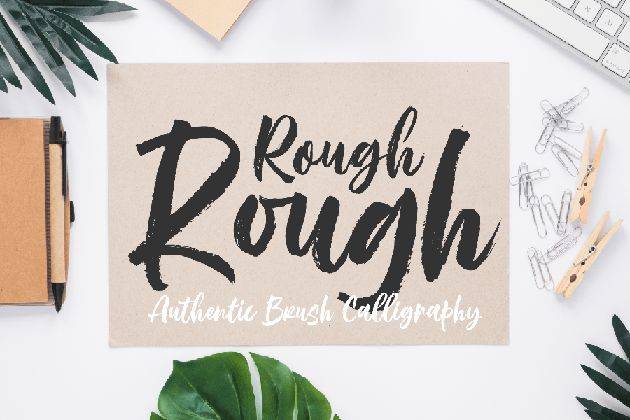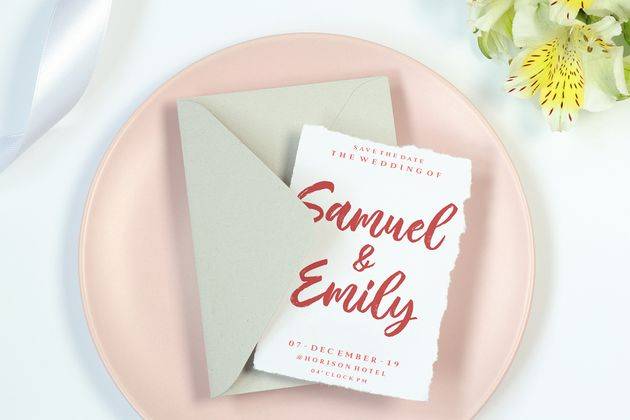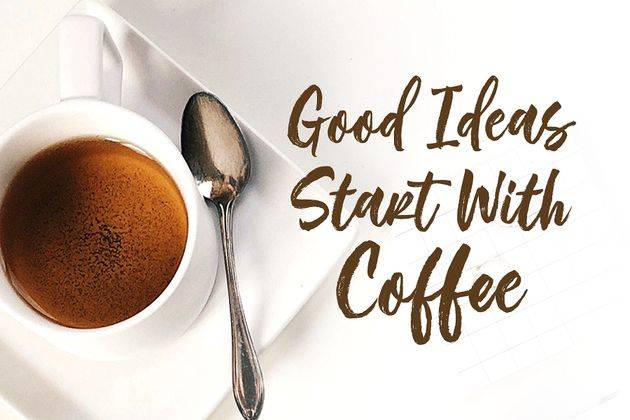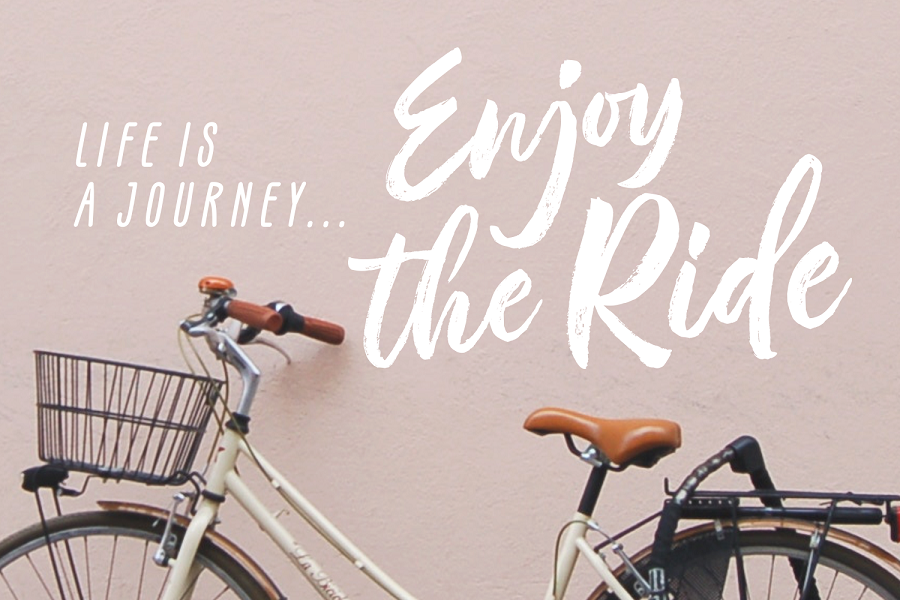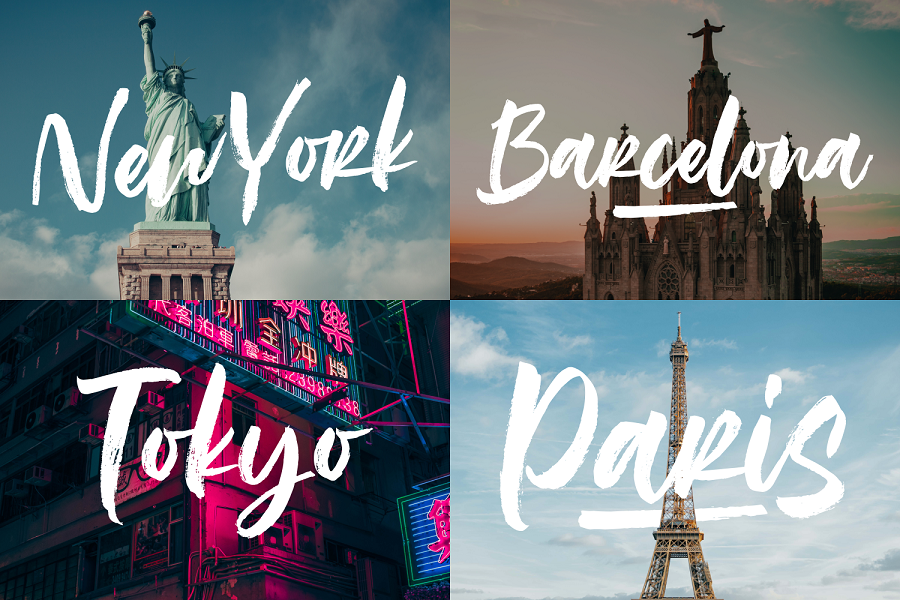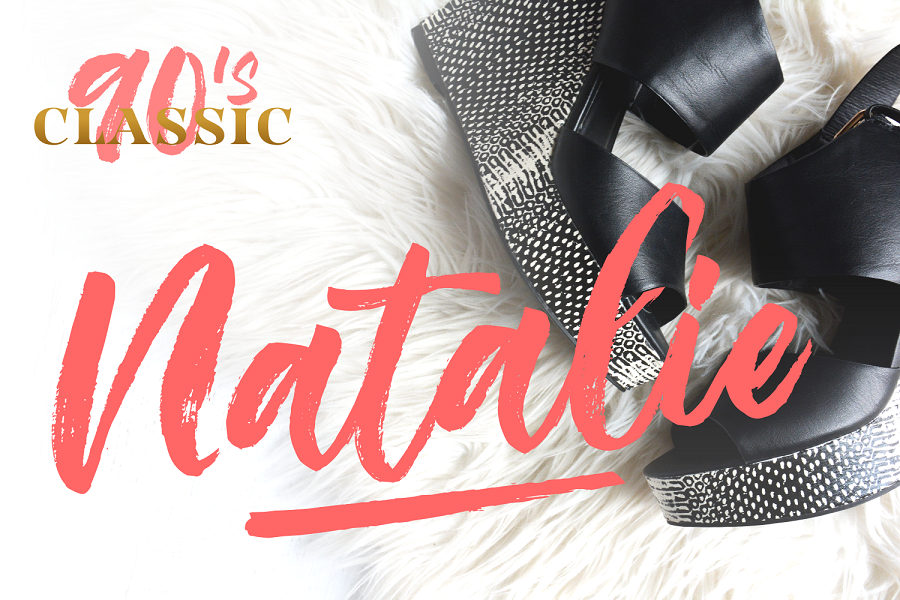
Rough Rough Script is a bold, hand-drawn brush script font with a textured, rough finish that gives it an energetic and authentic feel. Its lively, imperfect strokes create a casual yet expressive personality, making it perfect for creative branding, posters, and packaging that want to convey a handmade or adventurous vibe. This font works well in headline or display use where its dynamic style can truly stand out and add character.
Rough Rough Script Font
About Rough Rough Script Font
| Font family | Rough Rough Script Font |
| Designer | Situjuh Nazara |